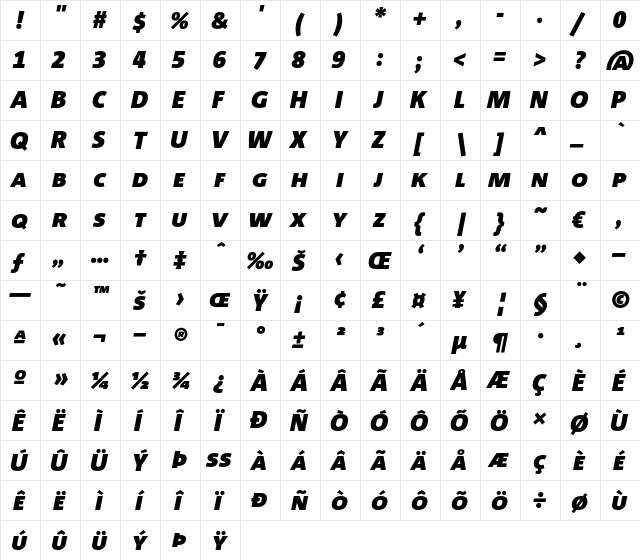
Corpid Caps Black Italic
Design Context for Corpid Caps Typeface
Corpid Caps offers clean, dependable letterforms without strong stylistic allegiance, making it a practical choice for designers who need flexibility. Its italic angle brings a sense of urgency and motion to the letterforms.
Pro Tip: Use Corpid Caps for emphasis, pull quotes, and subheadings where its slanted energy can add rhythm to the layout.